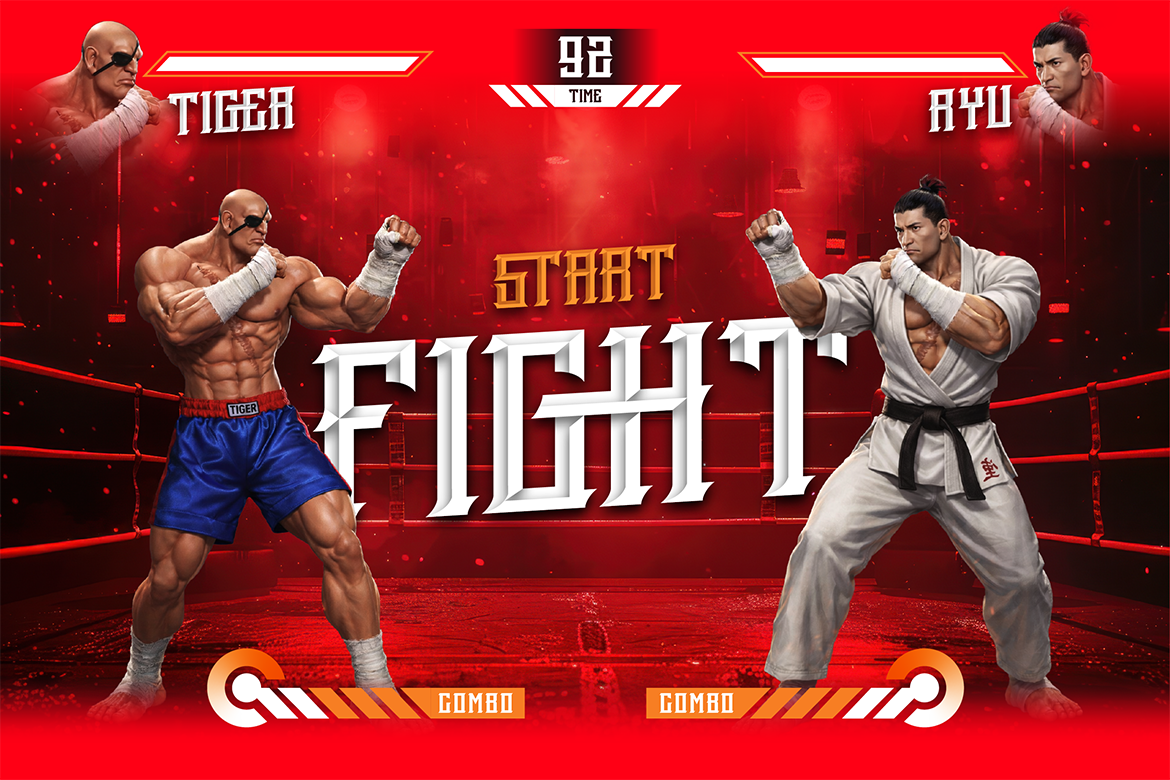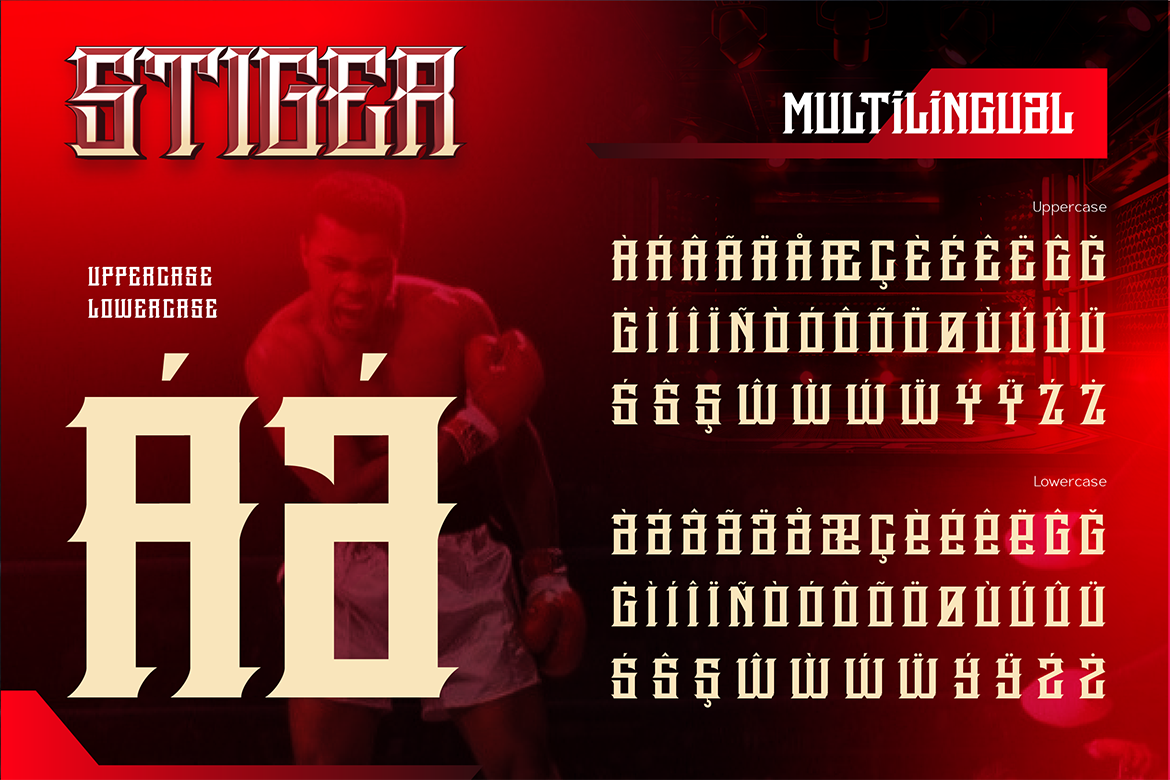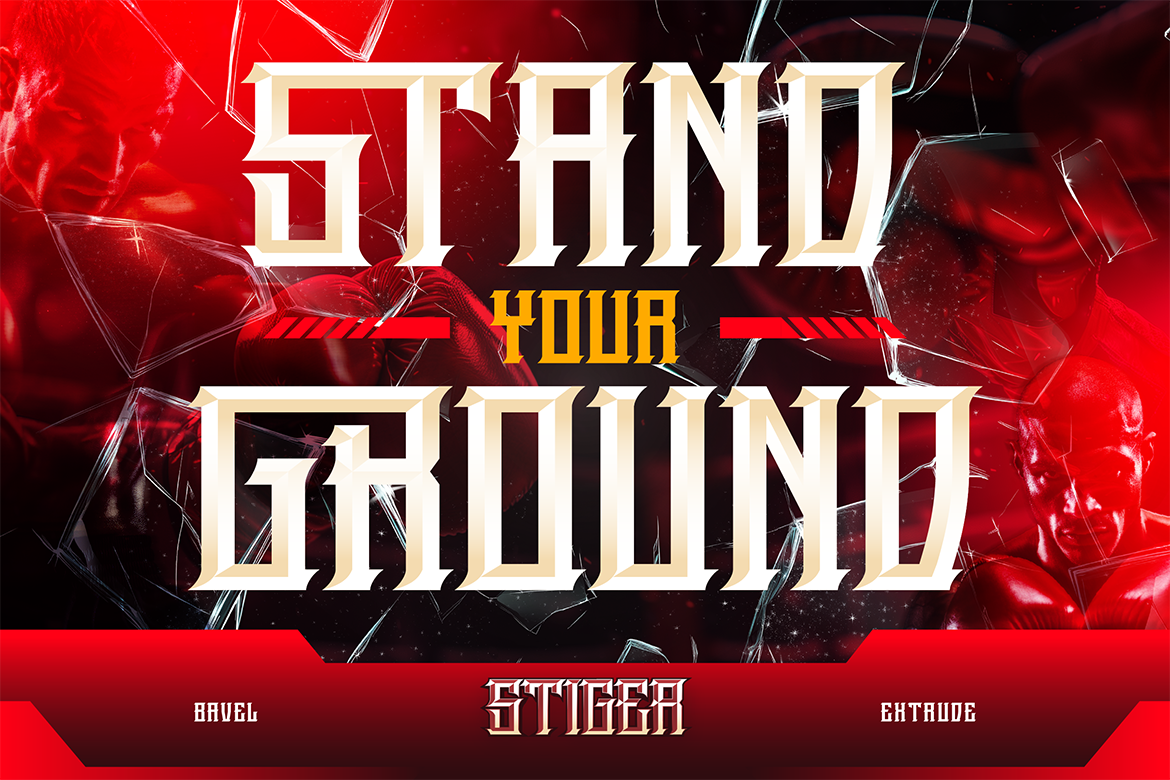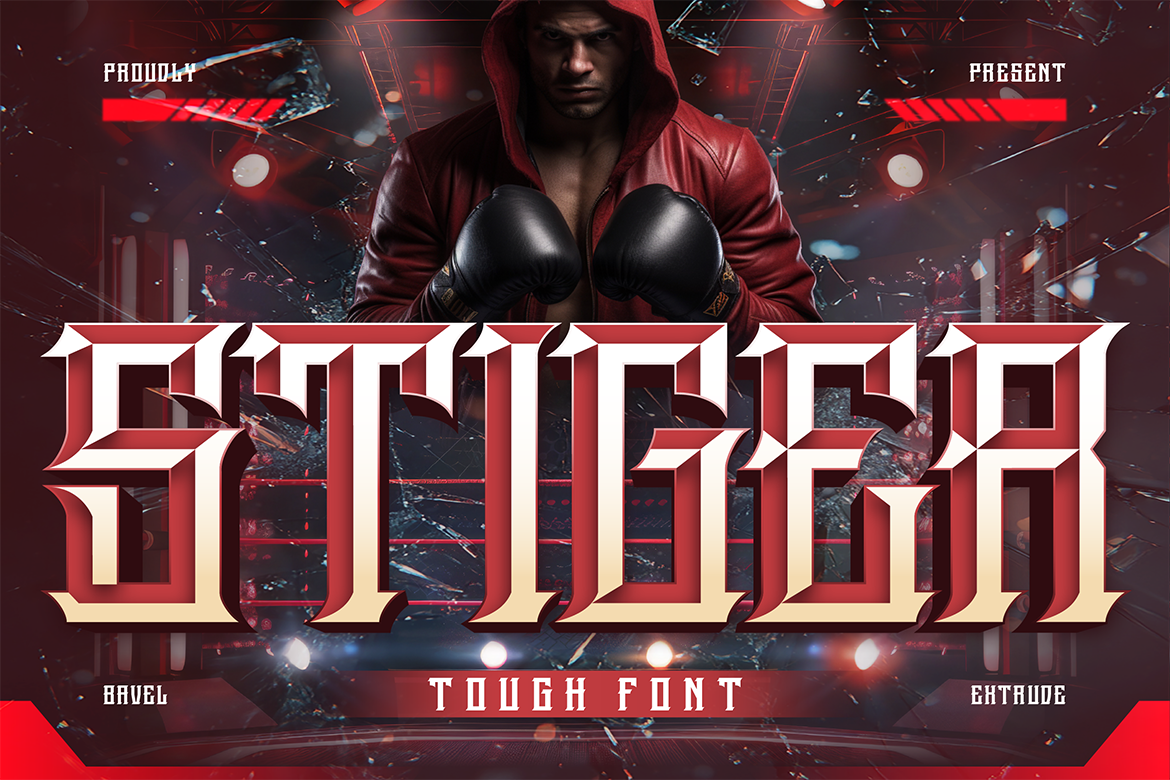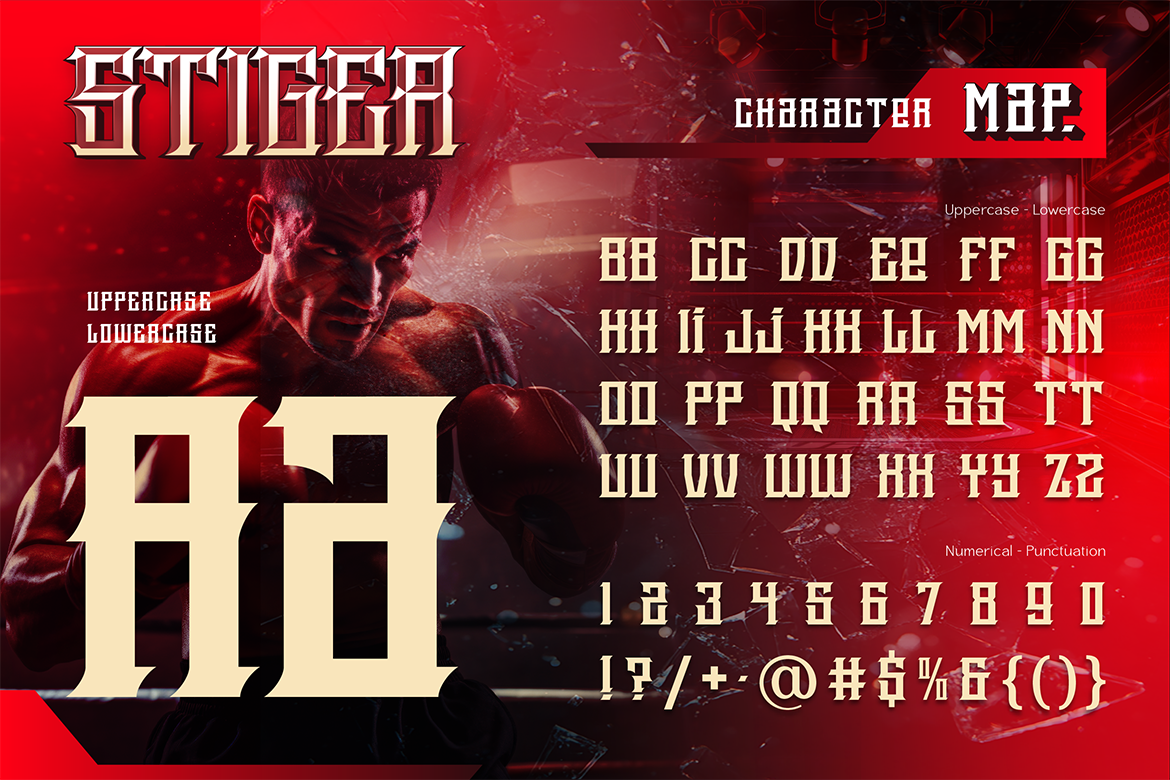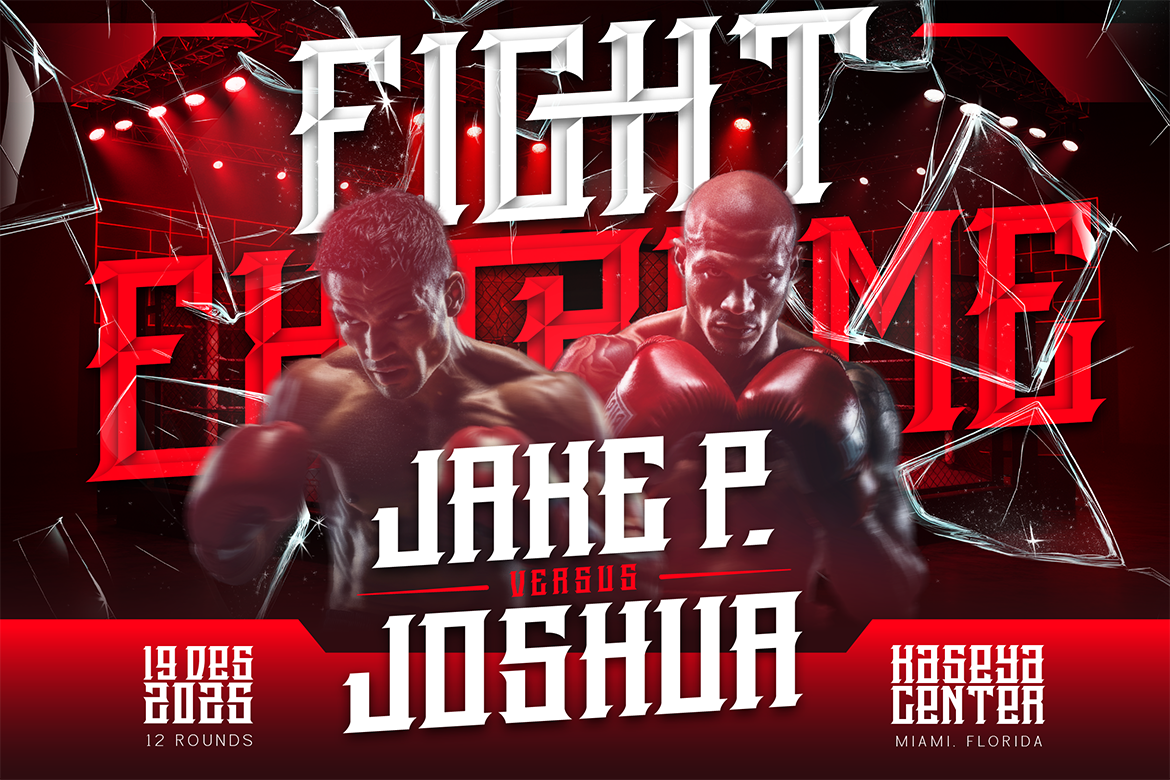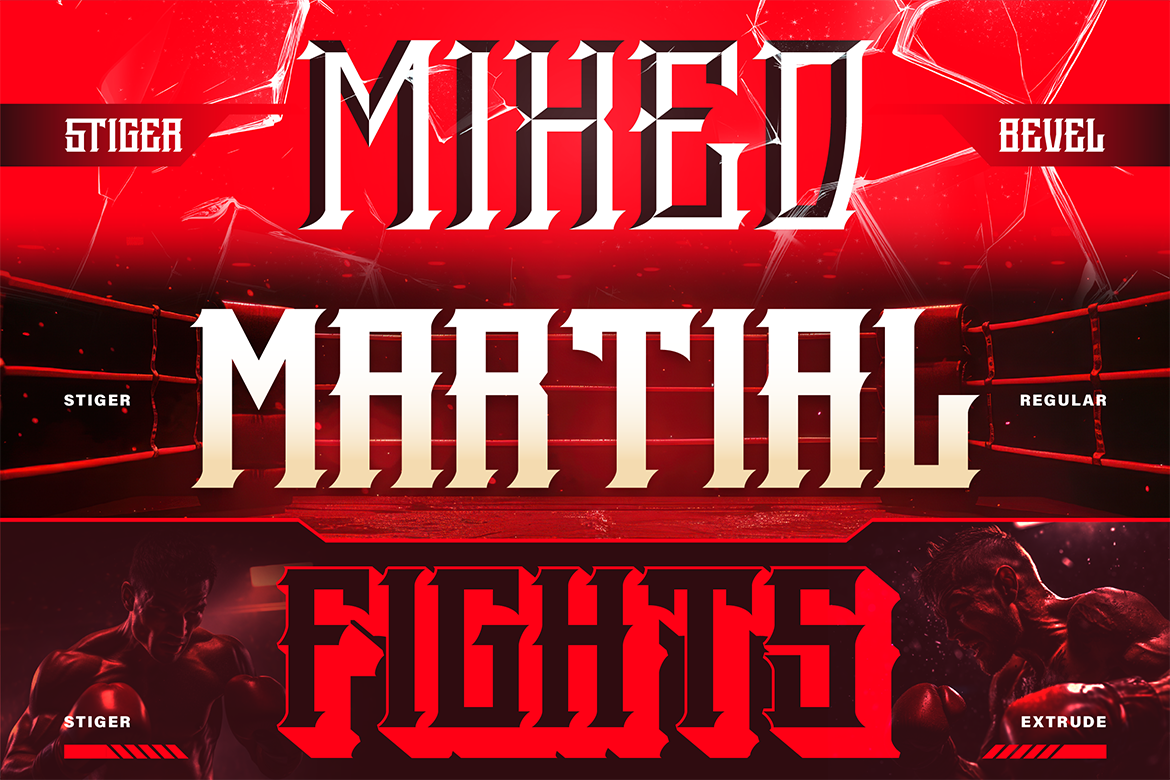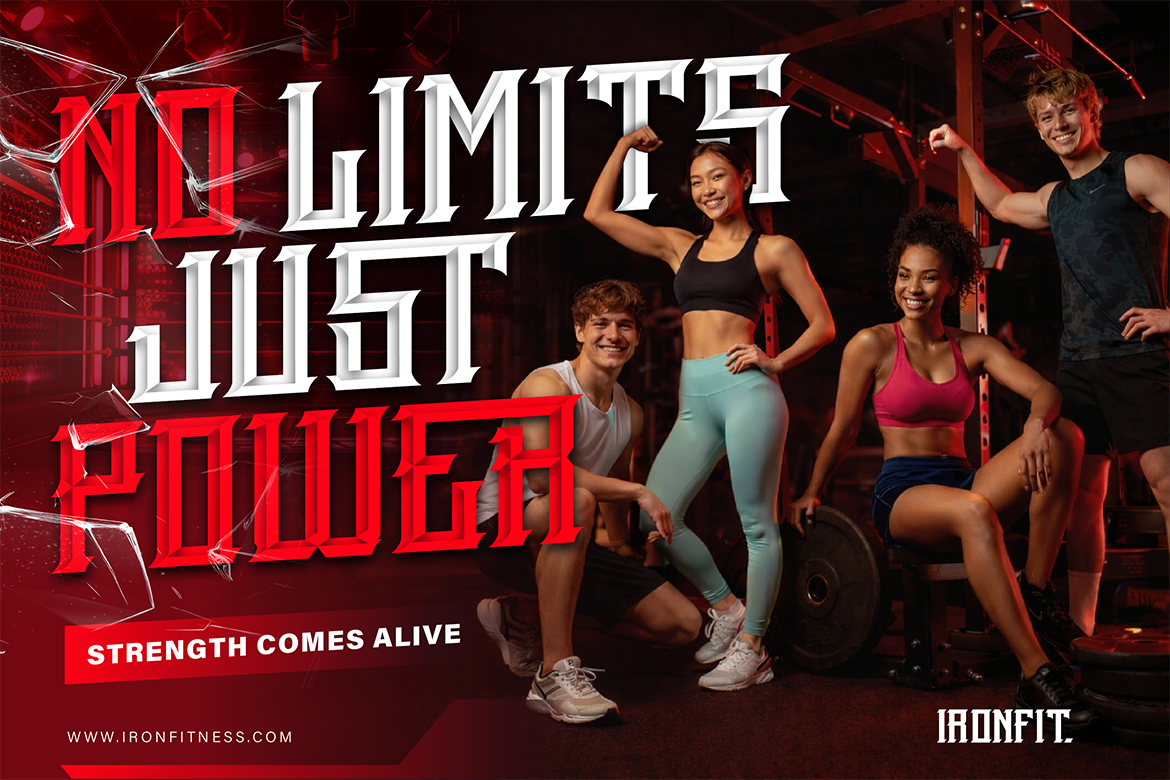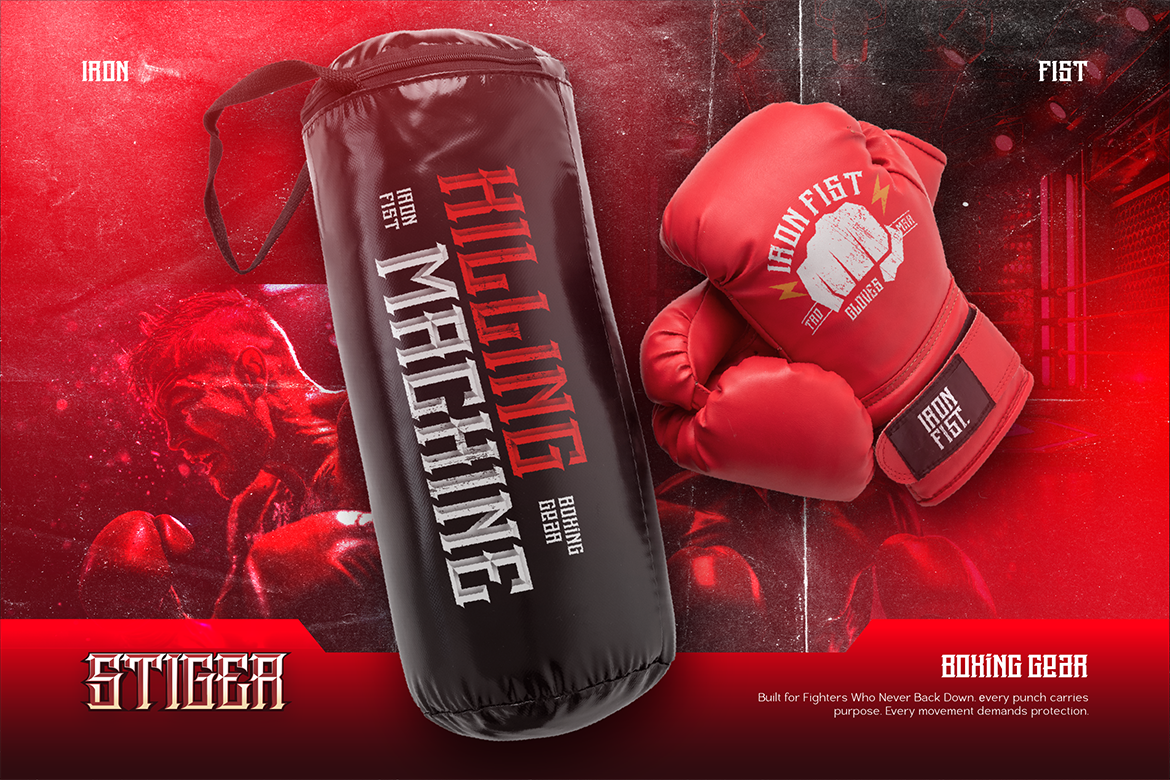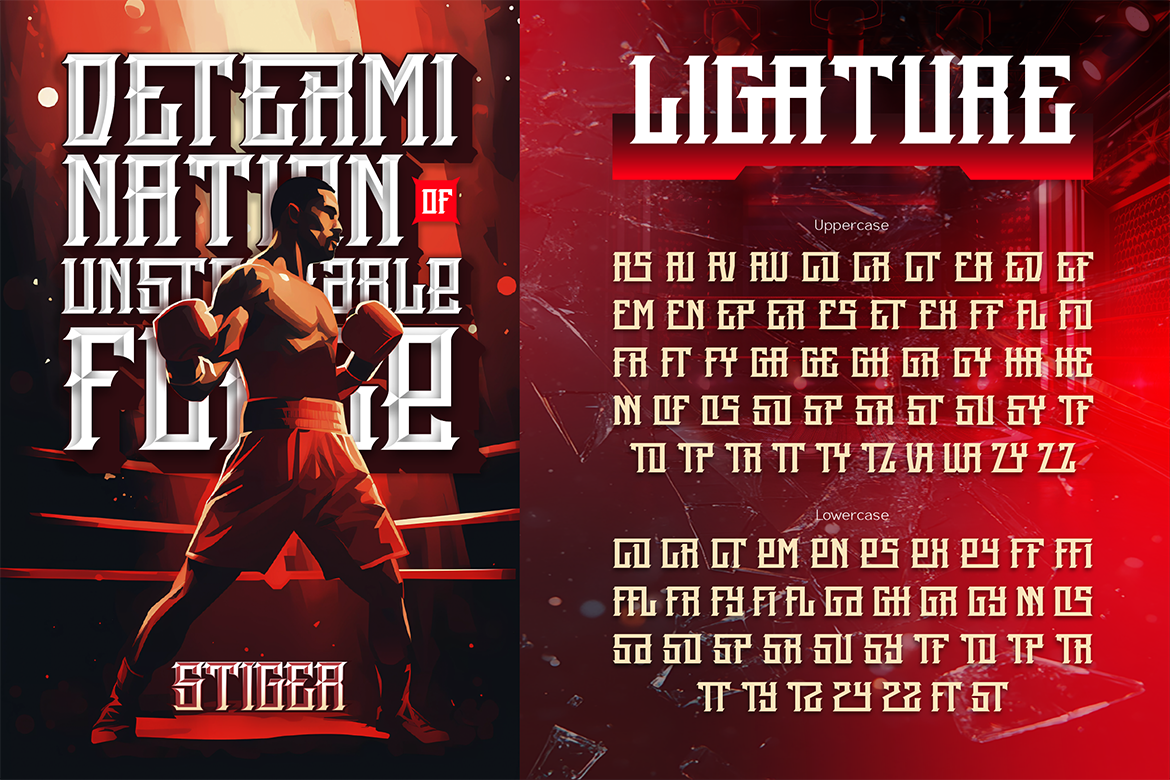
Stiger
Regular
Extrude
Bevel
STIGER is a tough, bold display font inspired by strength, motion, and competitive energy. Built with sharp angles, heavy strokes, and strong proportions, this font is designed to hit hard at first glance.
The letterforms feature a solid block structure with subtle cuts and beveled details, giving STIGER a powerful, masculine look without feeling overcomplicated. Its shape feels aggressive yet controlled—perfect for visuals that need to communicate power, speed, and confidence.
STIGER works best in large sizes, making it ideal for headlines, titles, posters, and statement typography. Whether you’re designing for sports branding, fight events, streetwear graphics, gym promotions, gaming visuals, or bold editorial layouts, this font delivers a strong visual punch.
With clear readability and impactful forms, STIGER is easy to pair with clean sans-serif fonts for body text, creating a balanced layout between toughness and clarity. Use it when you want your design to feel fearless, dominant, and unapologetically bold.
Perfect for:
• Sports branding & athletic visuals
• Boxing, MMA & fight event posters
• Gym promotions & fitness campaigns
• Streetwear & apparel design
• Esports & gaming titles
• Bold editorial headlines & magazine covers
• Logo design with strong character
• Poster & high-impact advertising layouts
• A – Z set (Uppercase & Lowercase All Caps)
• Number
• Punctuation
• Ligatures
• Multilingual
• Stiger Characters Map